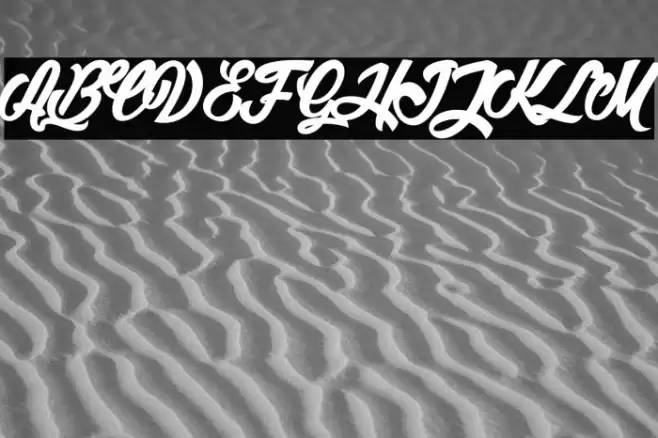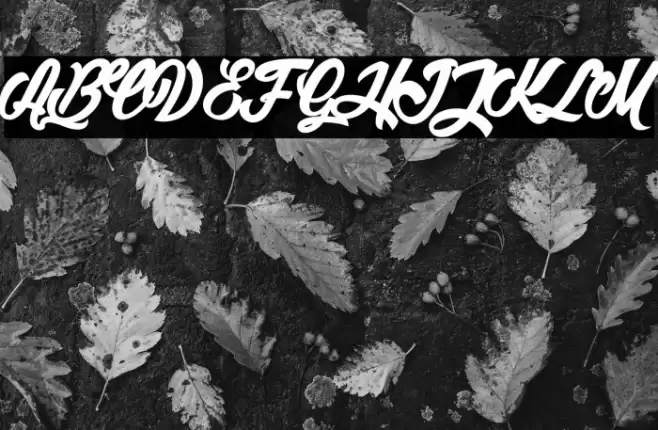
Litchis on Velvet 2_PersonalUseOnly Font
Litchis on Velvet 2_PersonalUseOnly Description
This font showcases a bold, cursive style with a strong emphasis on fluidity and elegance. The letters are interconnected, creating a seamless flow that is both dynamic and visually appealing. The uppercase letters are particularly ornate, featuring exaggerated loops and swirls that add a touch of sophistication. The lowercase letters maintain a consistent style, with smooth curves and a slightly slanted orientation. The numbers and special characters are designed to match the overall aesthetic, ensuring a cohesive look across all text elements. This font is ideal for projects that require a touch of elegance and flair, such as invitations, branding, or decorative headings.
A bold, cursive font with elegant, interconnected letters and ornate uppercase designs from Uncategorized fonts.
- Font: Litchis on Velvet 2_PersonalUseOnly
- Proposed Projects: Ideal for wedding invitations, elegant branding, decorative headings, and artistic projects.
- Character Spacing: Tight
- Use Case: Headlines, Logos, Invitations